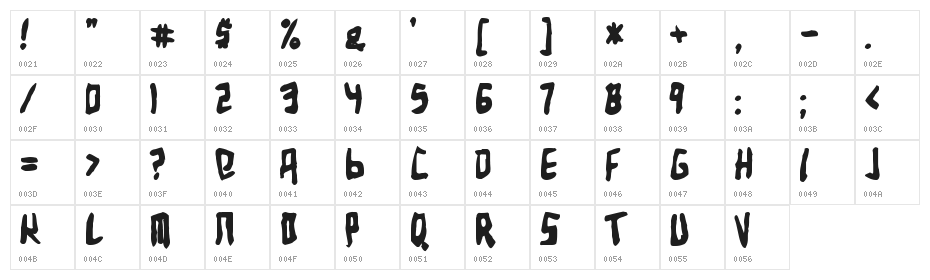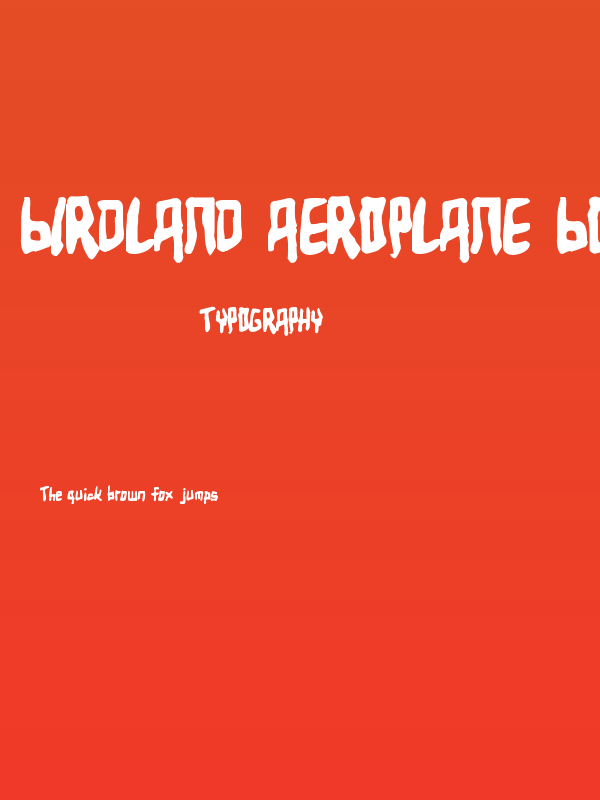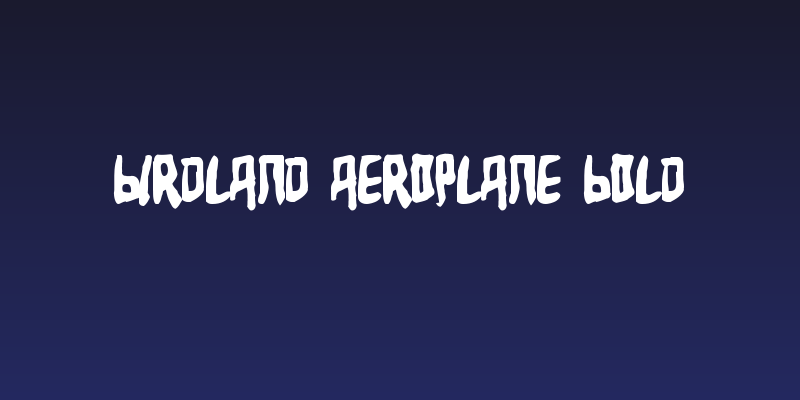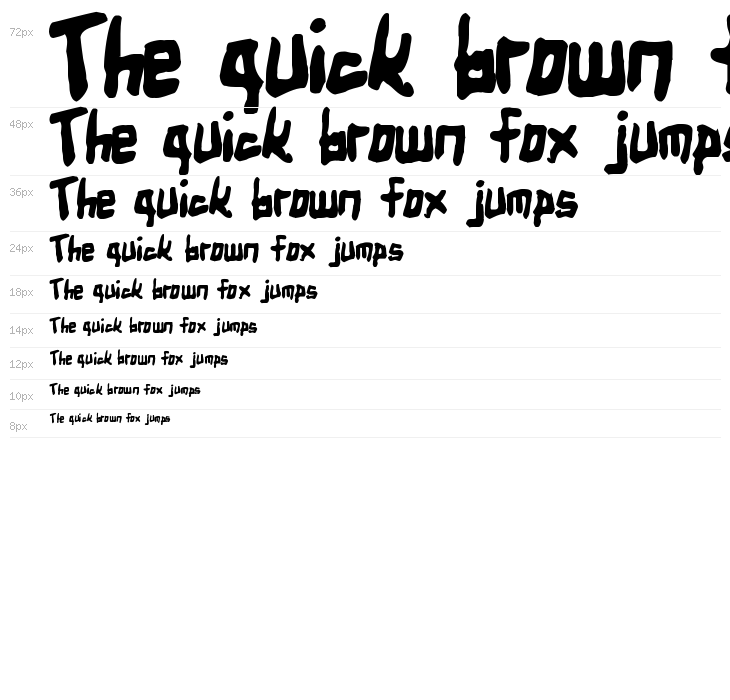
Birdland Aeroplane Bold Font
Birdland Aeroplane Bold Description
This font features a bold and expressive style with a hand-drawn appearance. The characters are thick and irregular, giving a playful and dynamic feel. The uppercase and lowercase letters maintain a consistent weight, while the numbers and special characters follow the same bold aesthetic. The strokes are uneven, adding to the font's unique and artistic charm. This style is reminiscent of graffiti or street art, making it stand out with its unconventional and creative look.
| Use Case | Logos, Posters, Album Covers |
| Proposed Projects | Ideal for projects that require a creative and artistic touch, such as posters, album covers, or branding for edgy and modern products. |